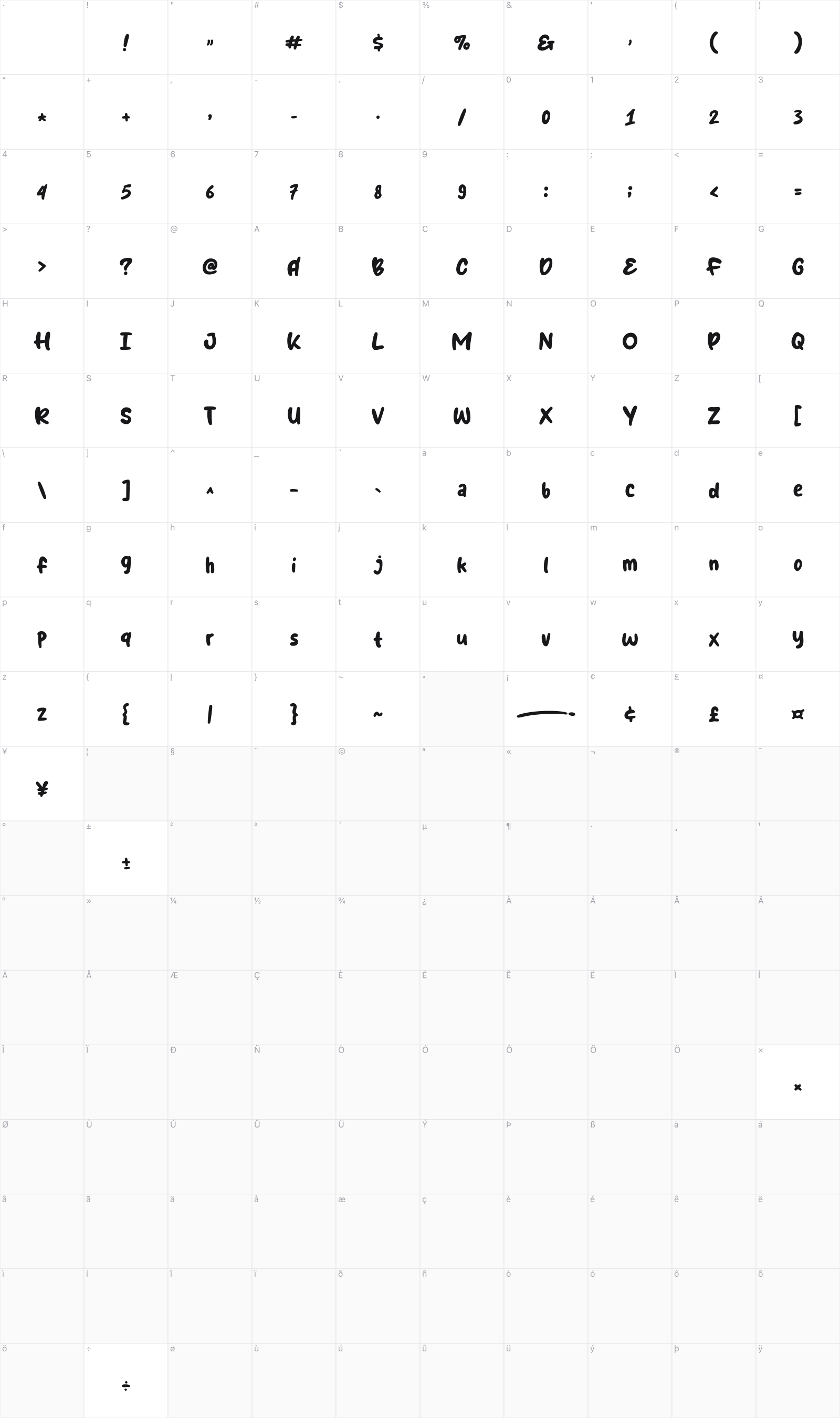
Bobaland
Bobaland is a bold, bubbly rounded sans with chunky strokes and a cheerful hand-drawn quality. The wide, casual characters have an easy comic warmth that works well for youth branding, food packaging, and anything that needs to feel approachable and fun. It takes clear inspiration from the bubble tea aesthetic it's named after.